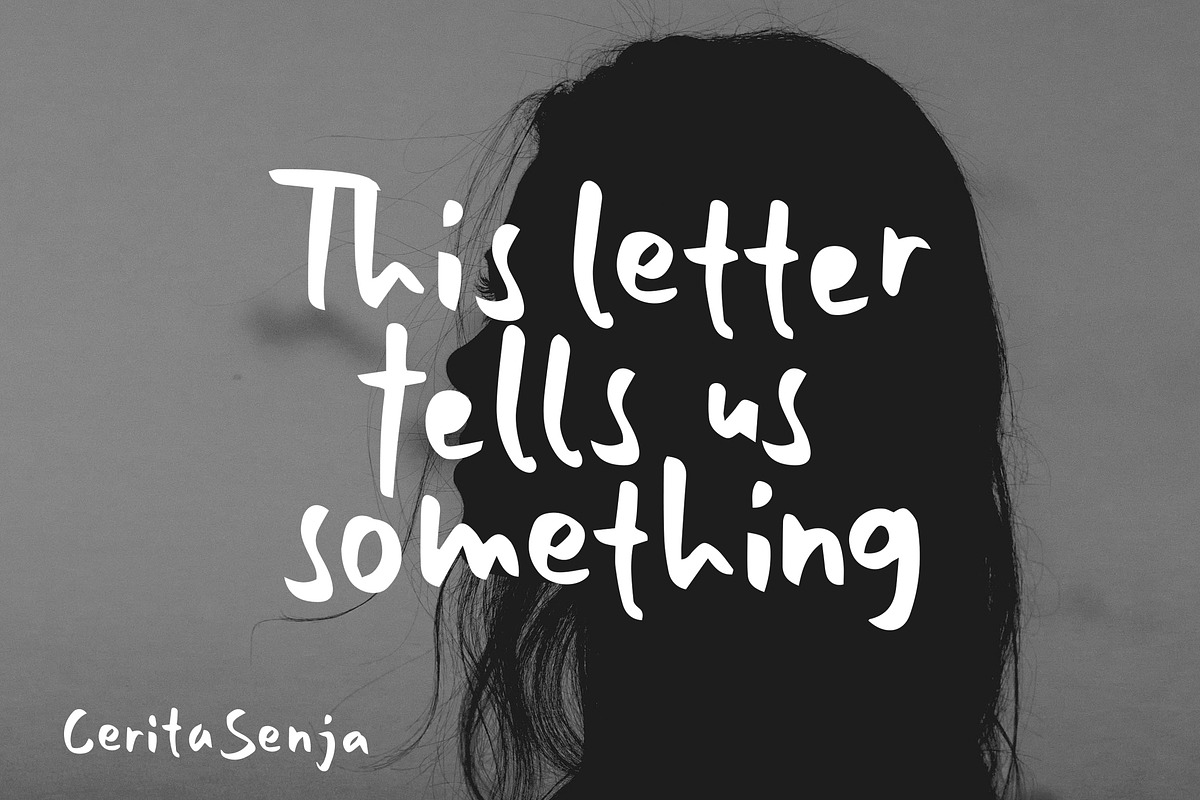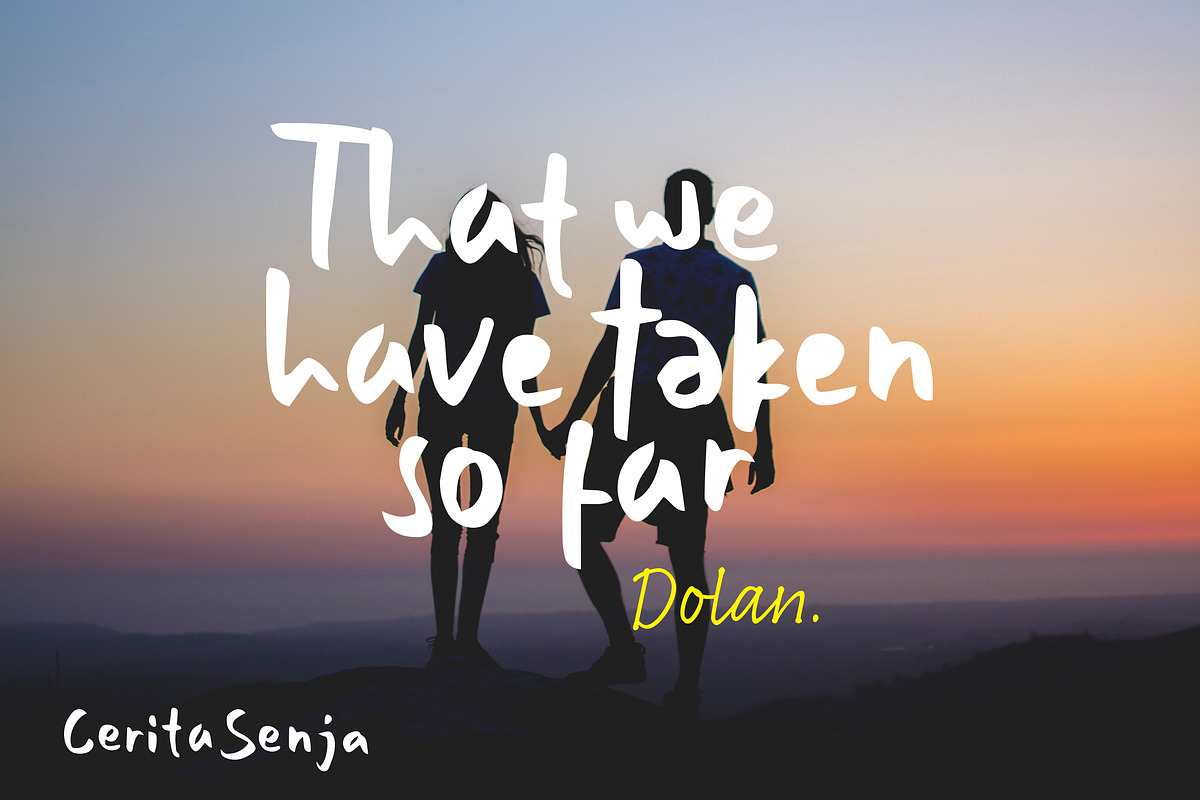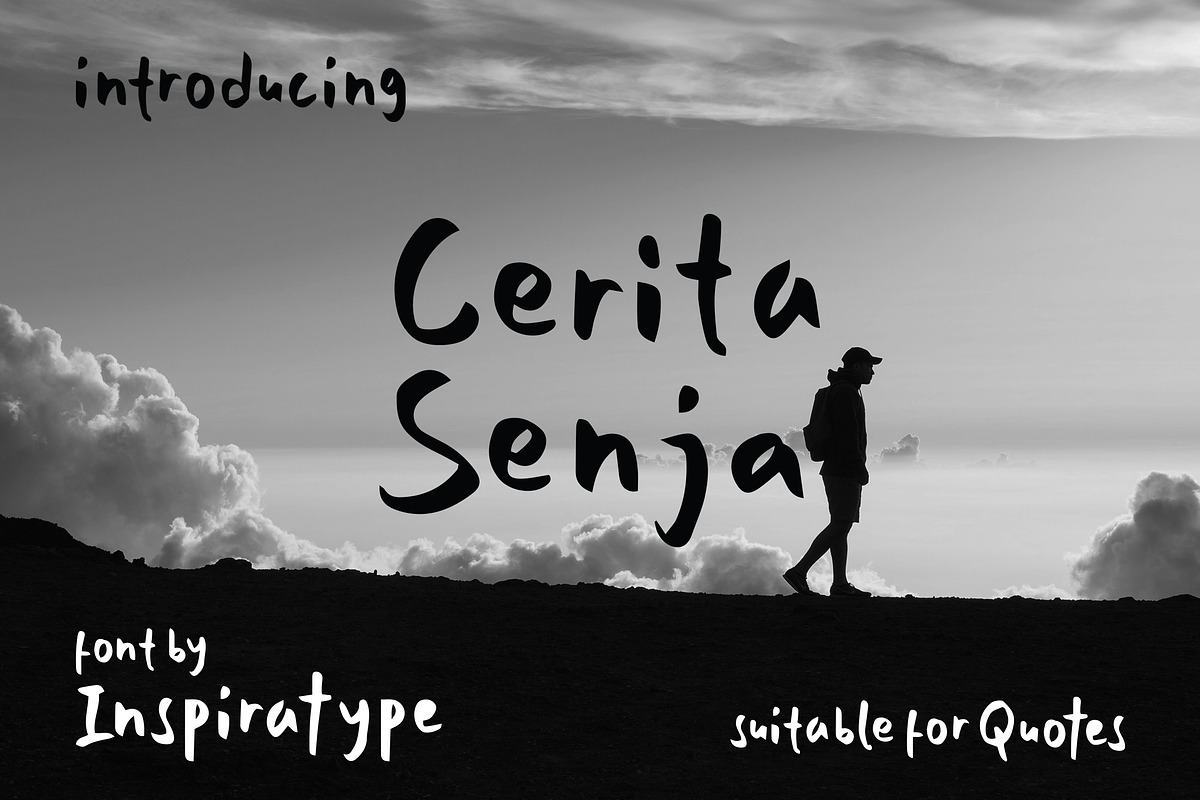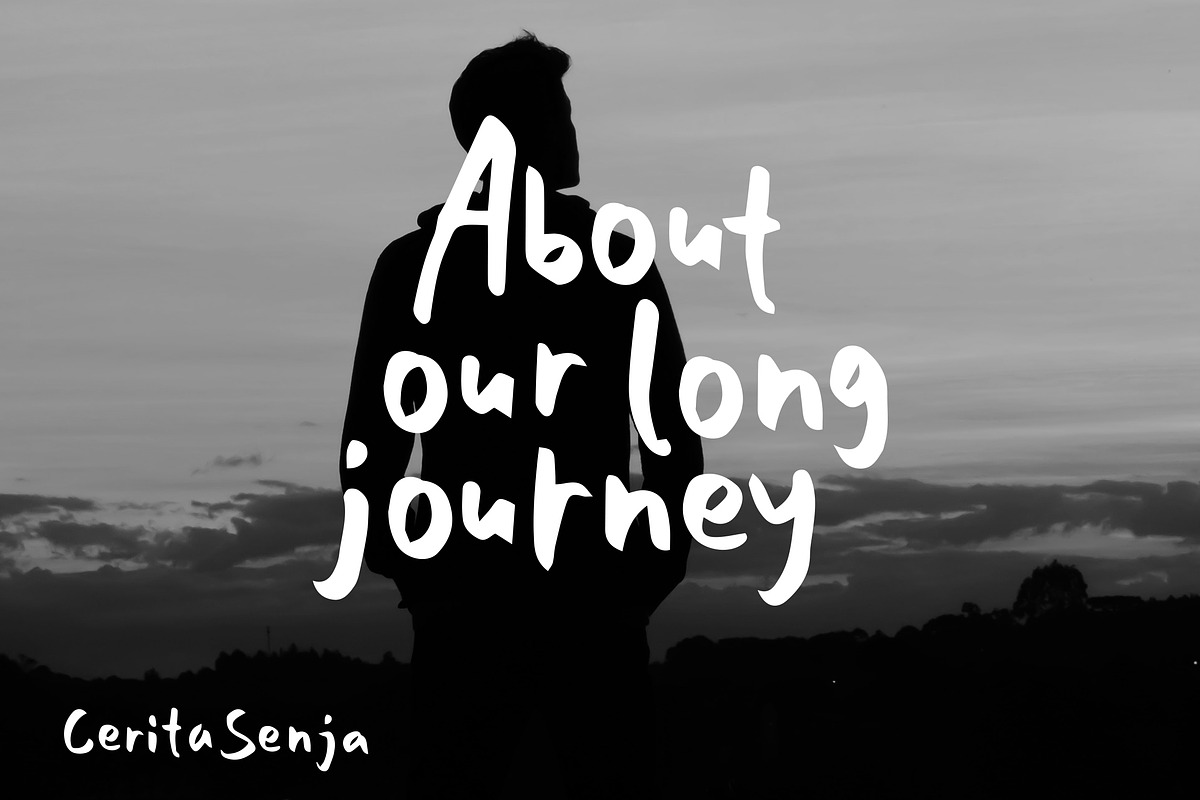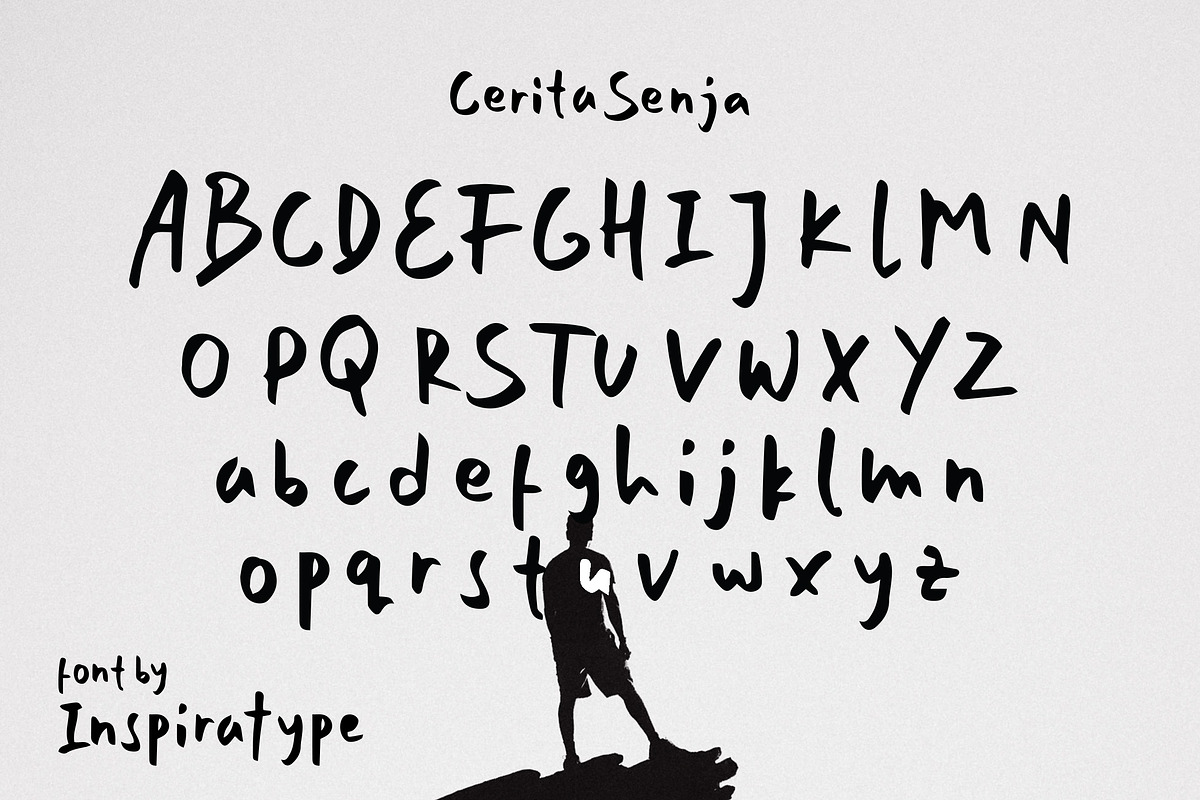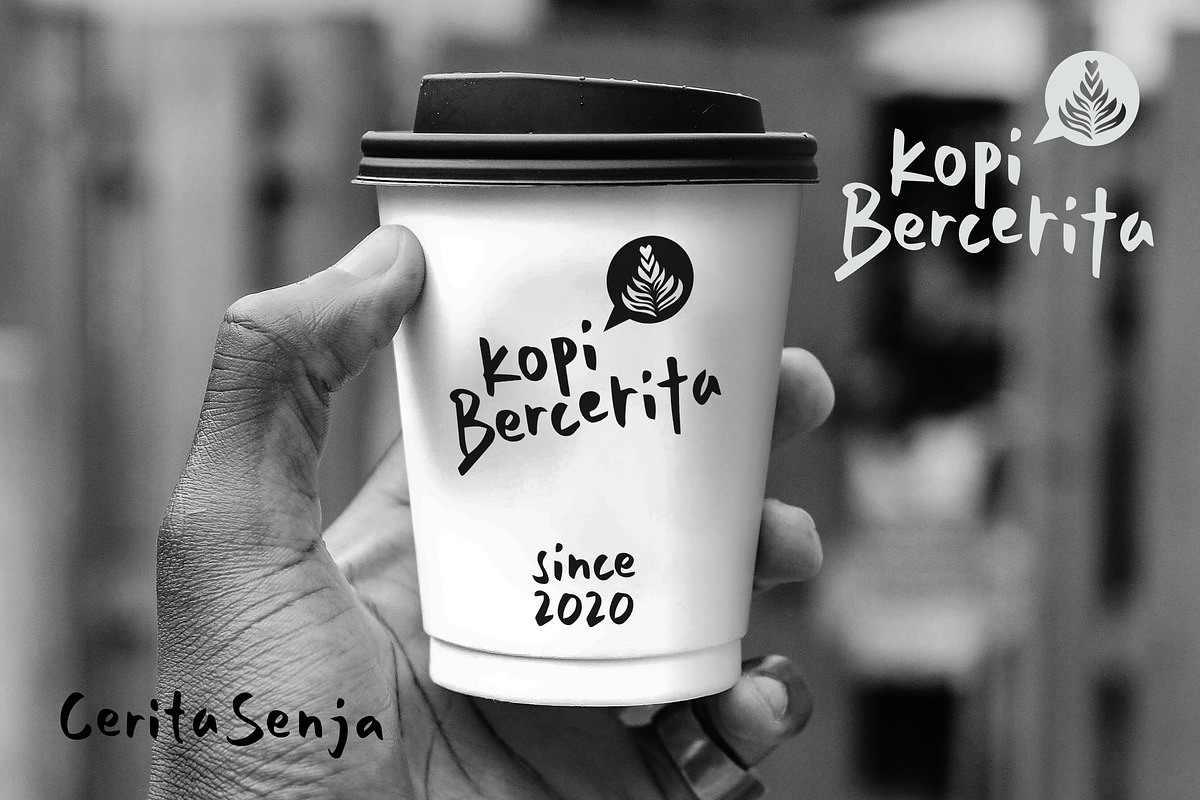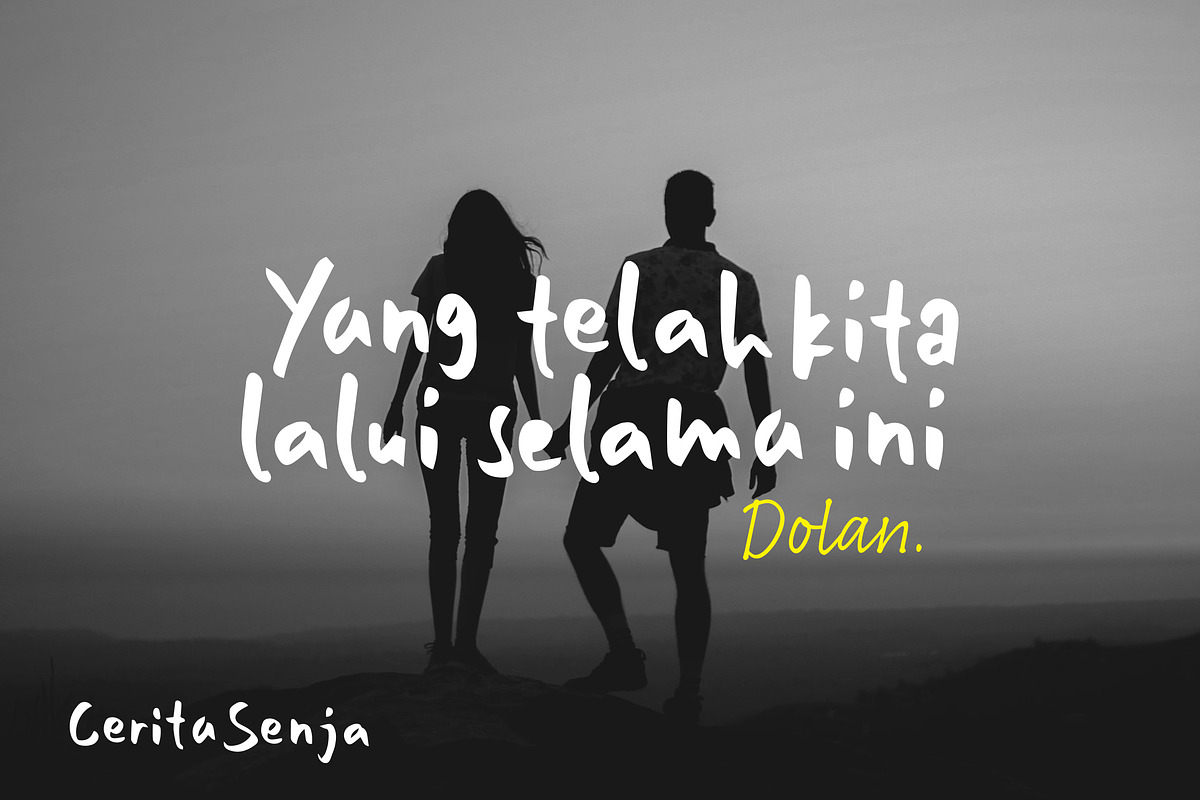
Cerita Senja - Quotes Font
"Cerit Senja" is a font display that is made by hand, inspired by classic posters.
comes with uppercase, lowercase, numerals, punctuations and so many variations on each character include OpenType alternates, common ligatures and also additional swash to let you customize your designs. Perfect to use for Logotype, Letterhead, Poster, Apparel Design, Label and etc.
OPENTYPE FEATURES
- Contextual Alternates
- All Alternates